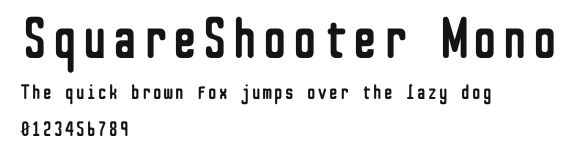
SquareShooter Mono Preview
• Font Name: SquareShooter Mono
• Full Font Name: SquareShooter Mono
• Designer: HT
• Manufacturer: HT
About SquareShooter Mono.ttf
SquareShooter Mono.ttf is a modern, elegant sans-serif font designed for ultimate readability and visual harmony. Perfect for branding, headlines, web design, and print materials.